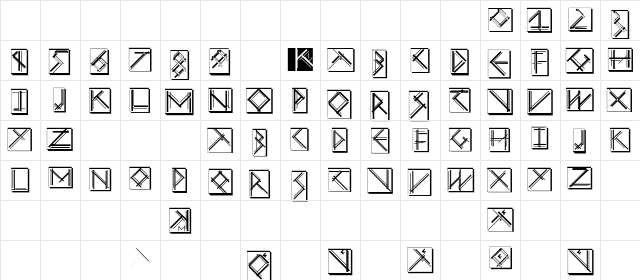
Complete MouseStrokesInverseShadow Regular glyph index. Displaying only characters natively supported by MouseStrokesInverseShadow Regular font.
MouseStrokesInverseShadow is built around its visual character rather than neutral utility - its distinctive forms are designed to make an impression at display sizes.
Font Pairing: Pair with a clean neutral sans-serif for body copy to let MouseStrokesInverseShadow's character lead without overwhelming the composition.
Pro Tip: Use MouseStrokesInverseShadow exclusively at display sizes - it was designed to be seen, not read at length. Let a neutral companion handle body copy.